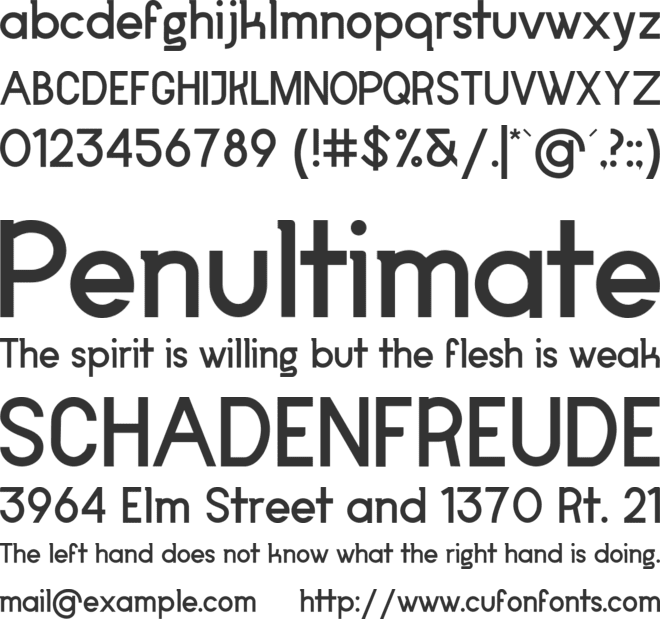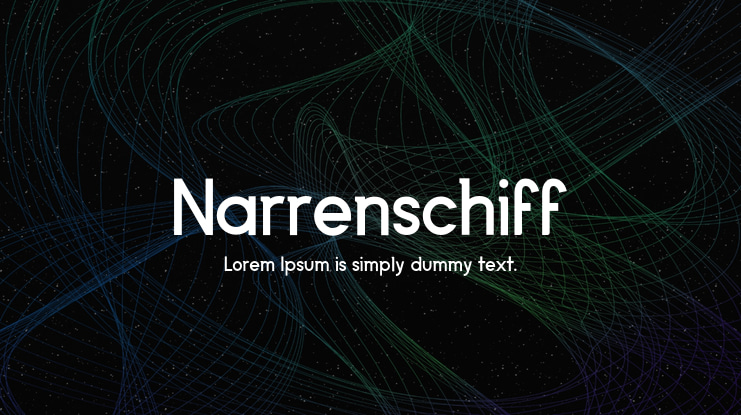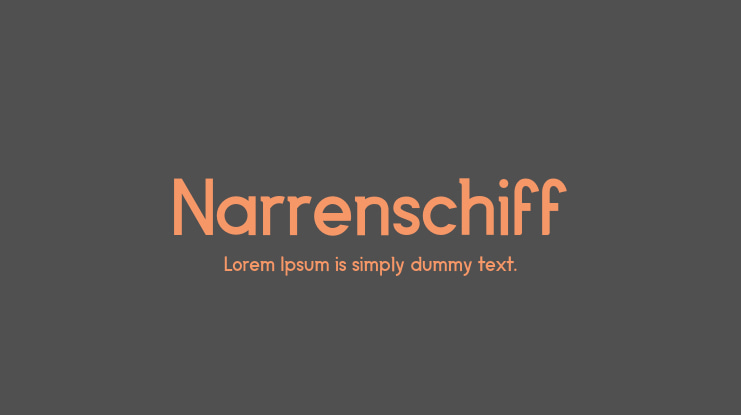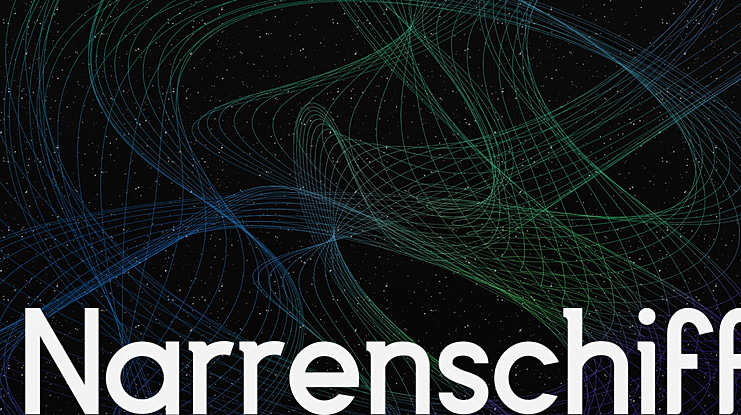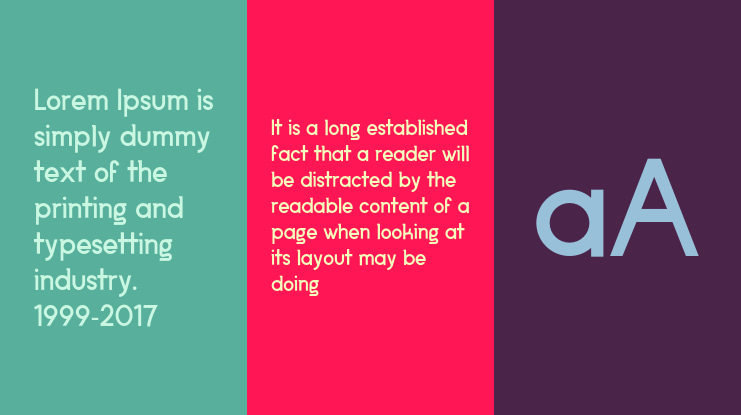
Narrenschiff Font Family
A clear, modern typeface well suitable for titles, slogans, or other short texts. Feel free to use it for anything you want.